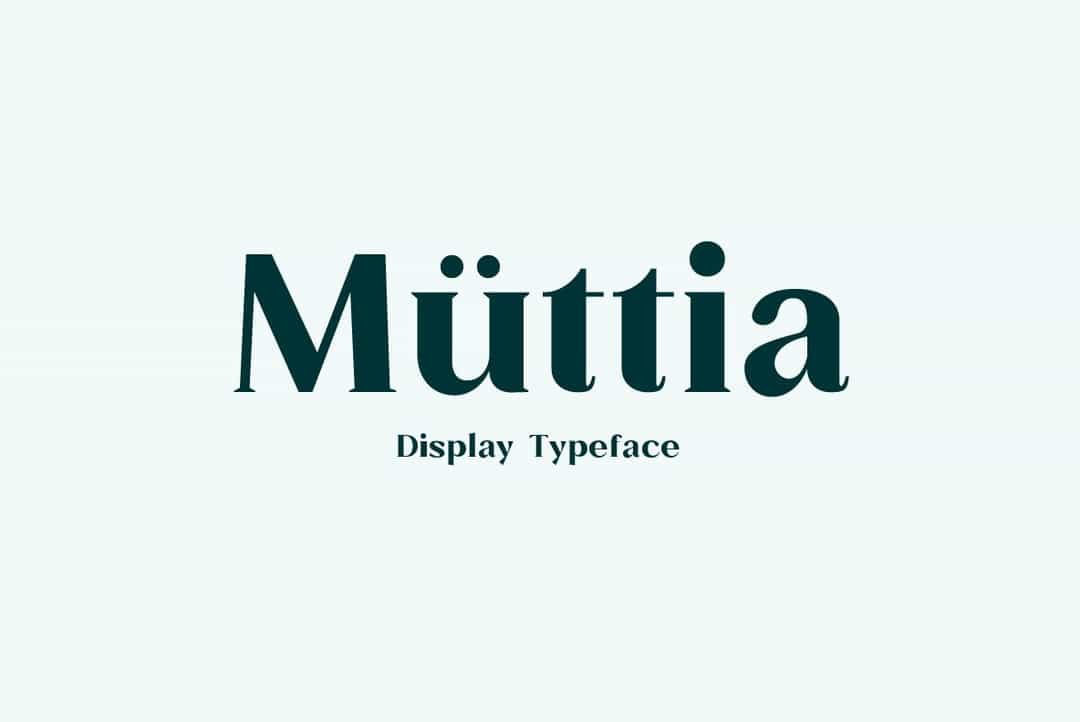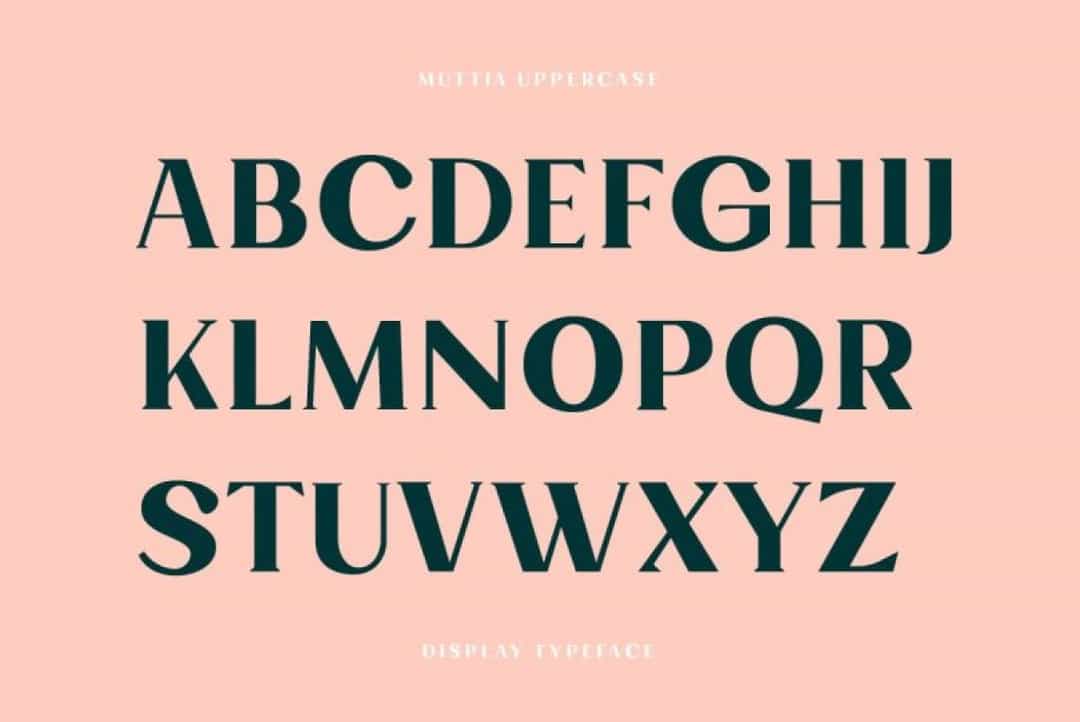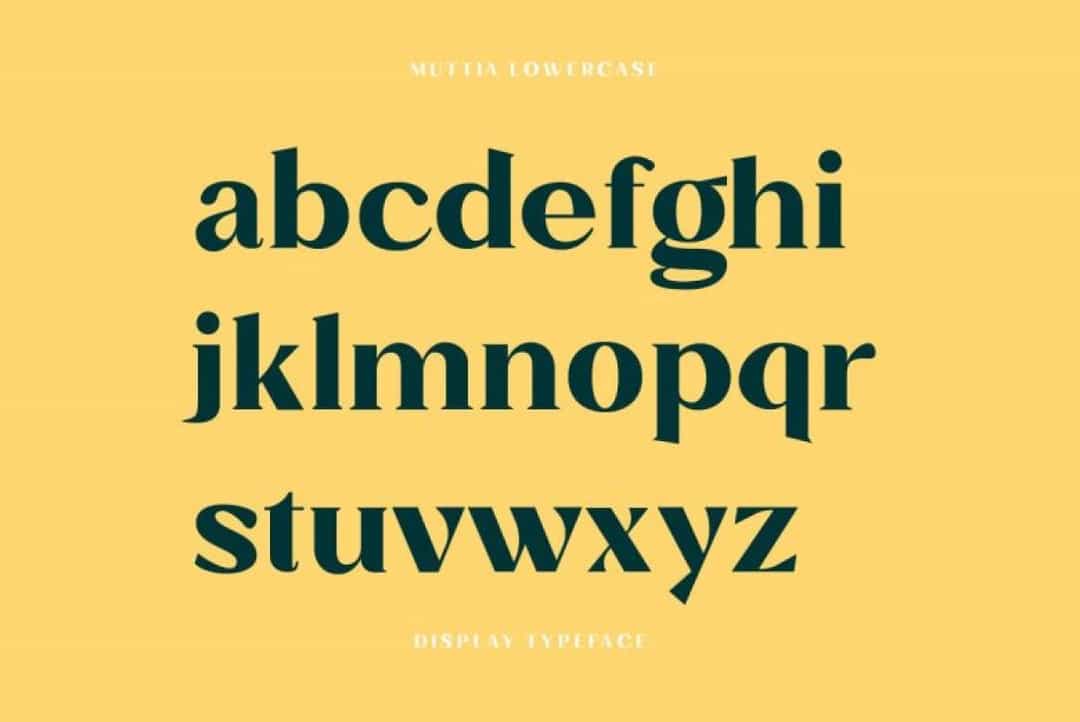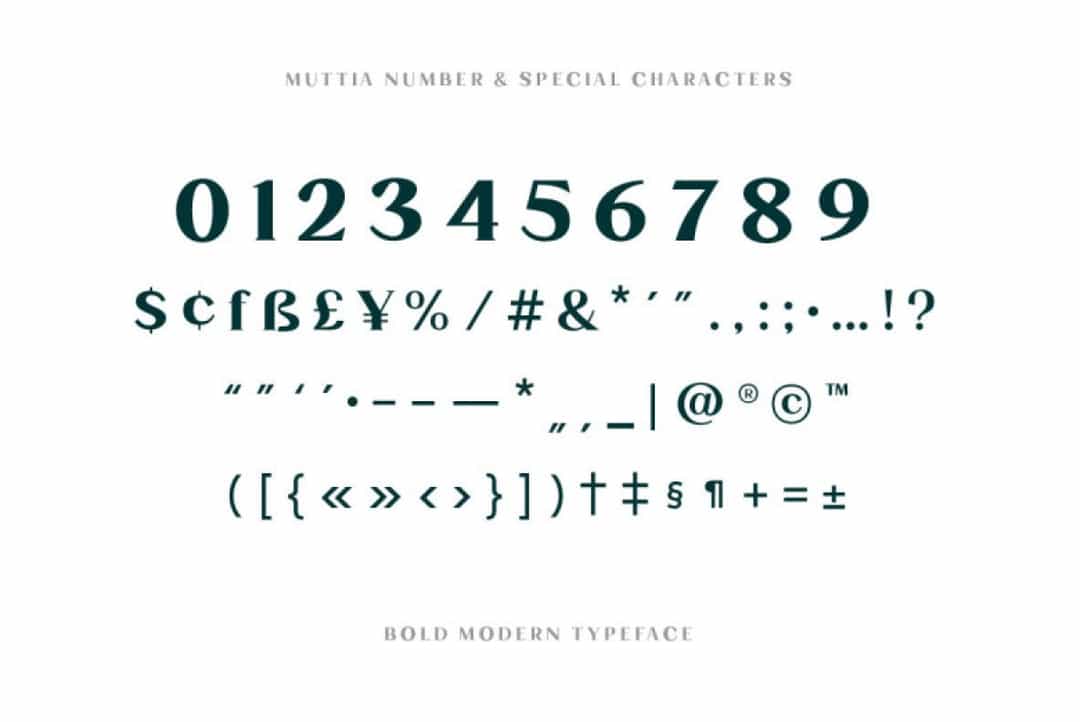
Muttia is an exquisite serif typeface that adds instant glamour to advertising, branding packaging logo headline titles or titles without resorting to unnecessary fancy embellishments! Simply utilize this font family in various sizes and styles for stunning work of artwork!